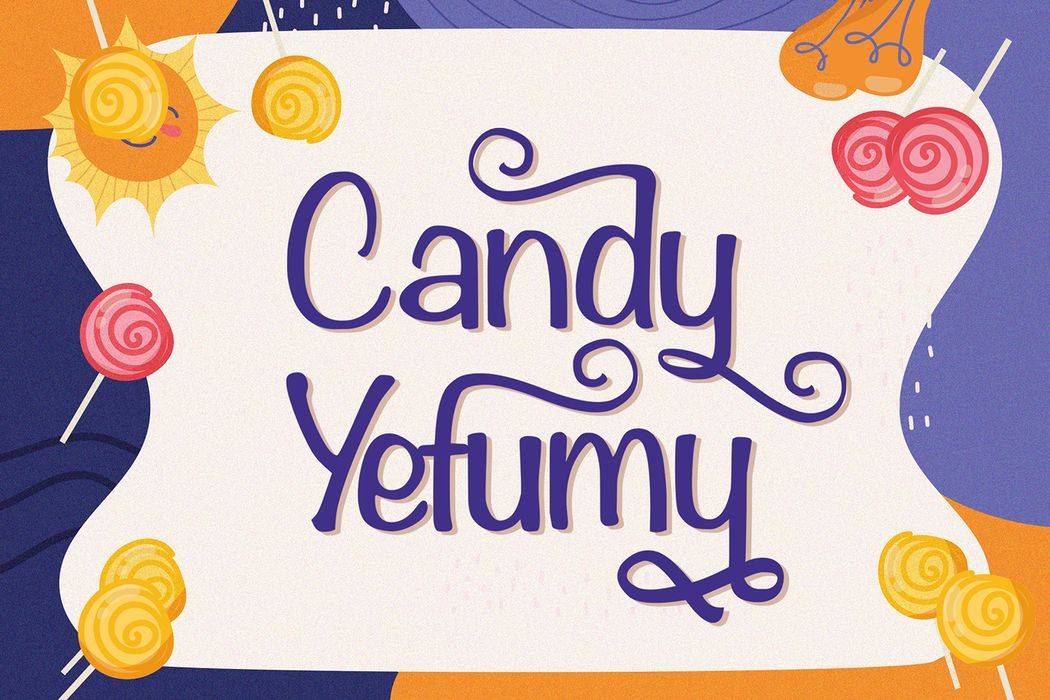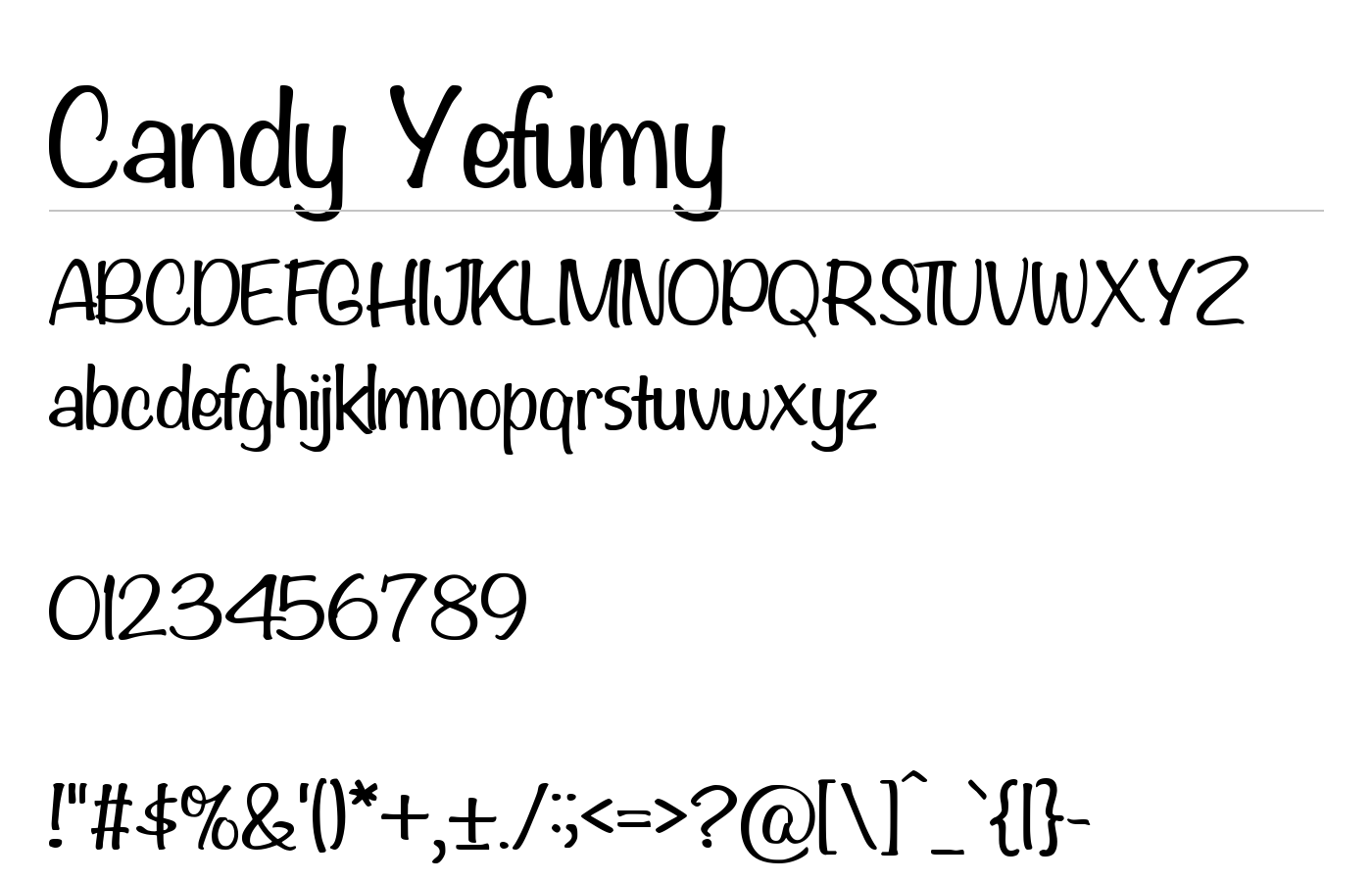
Candy Yefumy is a playful and informal sans serif font with a hand-drawn, whimsical feel. Its tall, narrow letterforms and slightly uneven strokes give it a friendly and approachable character, making it ideal for creative and casual designs like children's books, greeting cards, and fun branding. This font works well for headlines and short texts where a lively, personal touch is desired.
Candy Yefumy Font
About Candy Yefumy Font
| Font family | Candy Yefumy Font |
| Designer | Stringlabs. 2020 |